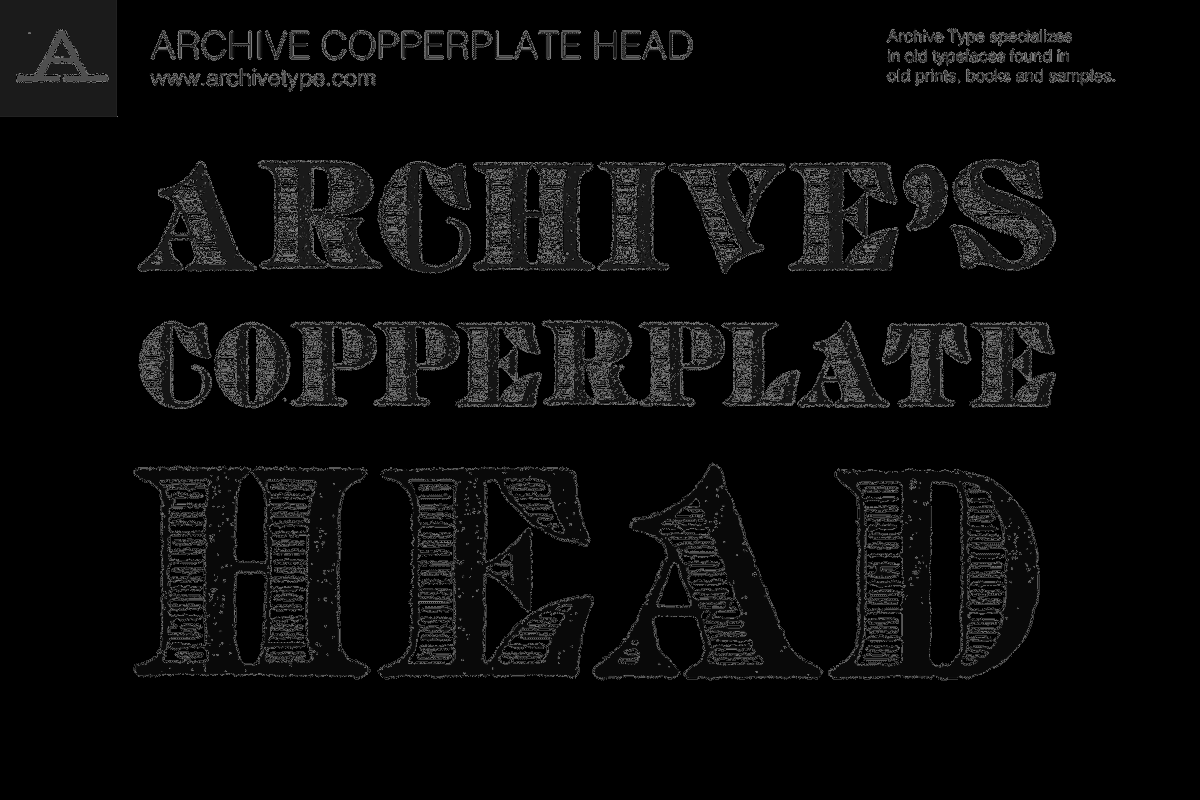
Archive Copperplate Head Font Free Download is a stately and timeless typeface inspired by traditional copperplate engraving styles. With its sharp, elegant serifs and engraved-look detailing, this font is perfect for formal branding, book titles, certificates, editorial layouts, and heritage-inspired design projects.
It combines old-world craftsmanship with a clean, professional feel—making it ideal for designers who want to convey sophistication, tradition, and authority. Whether used in print or digital formats, Archive Copperplate Head stands out with its classic structure and refined presence.